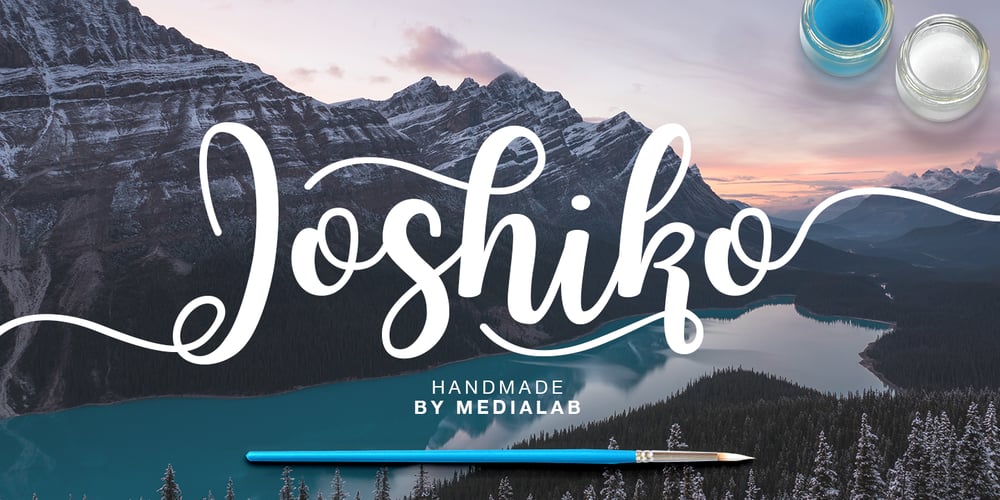
Joshico Font Family was designed by Dmitrii Chirkov and published by Supfonts. Joshico contains 1 styles and family package options. Joshico – a new fresh handmade calligraphy font. Very suitable for greeting cards, branding materials, business cards, quotes, posters, and more!